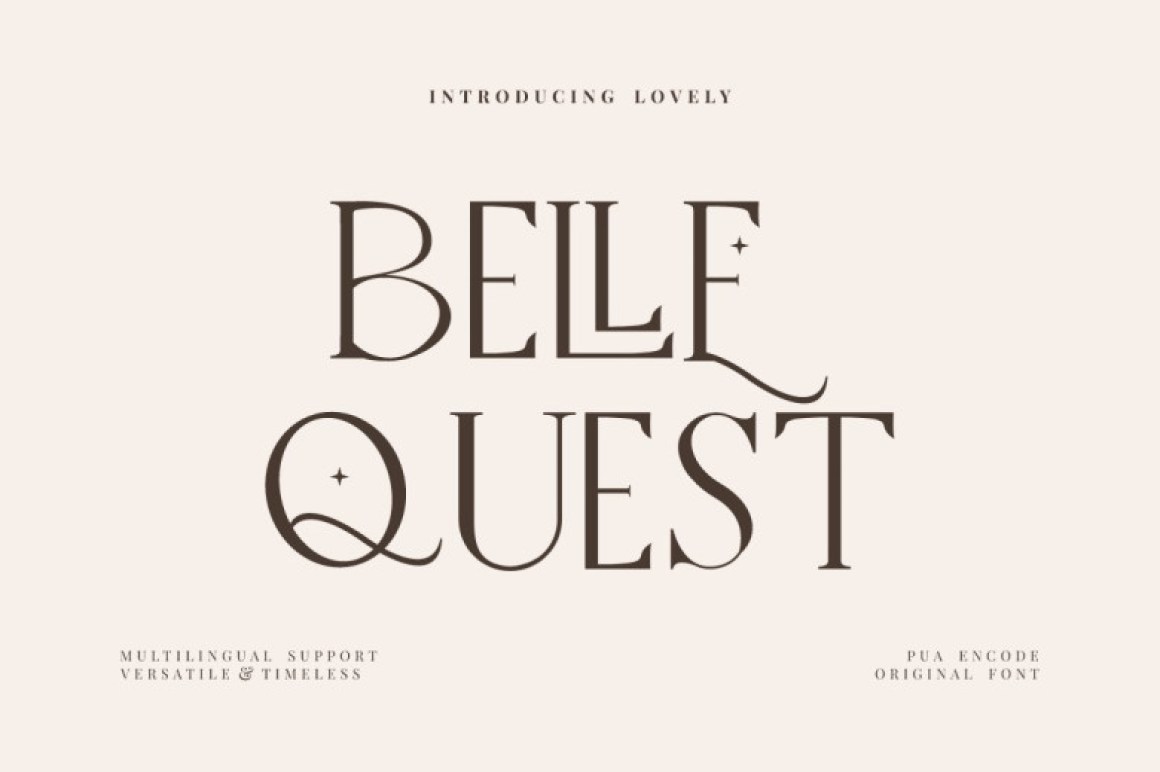
Belle Quest Font [1]
Belle Quest from FinTypeStudio is an elegant serif font that embodies timeless sophistication with a contemporary edge. Designed with meticulous attention to detail, it features classic serif structures enhanced by subtle modern proportions and crisp terminals, resulting in exceptional readability and grace. This font is a versatile workhorse, perfectly suited for high-end logos, corporate branding, luxury packaging, and editorial design for magazines or books. Its refined character makes it equally effective on wedding invitations and homeware product labels, adding an instant aura of quality and trust. Belle Quest offers a comprehensive character set with multiple weights and stylistic sets, providing the flexibility needed for complex, beautiful typographic compositions that demand both tradition and freshness.